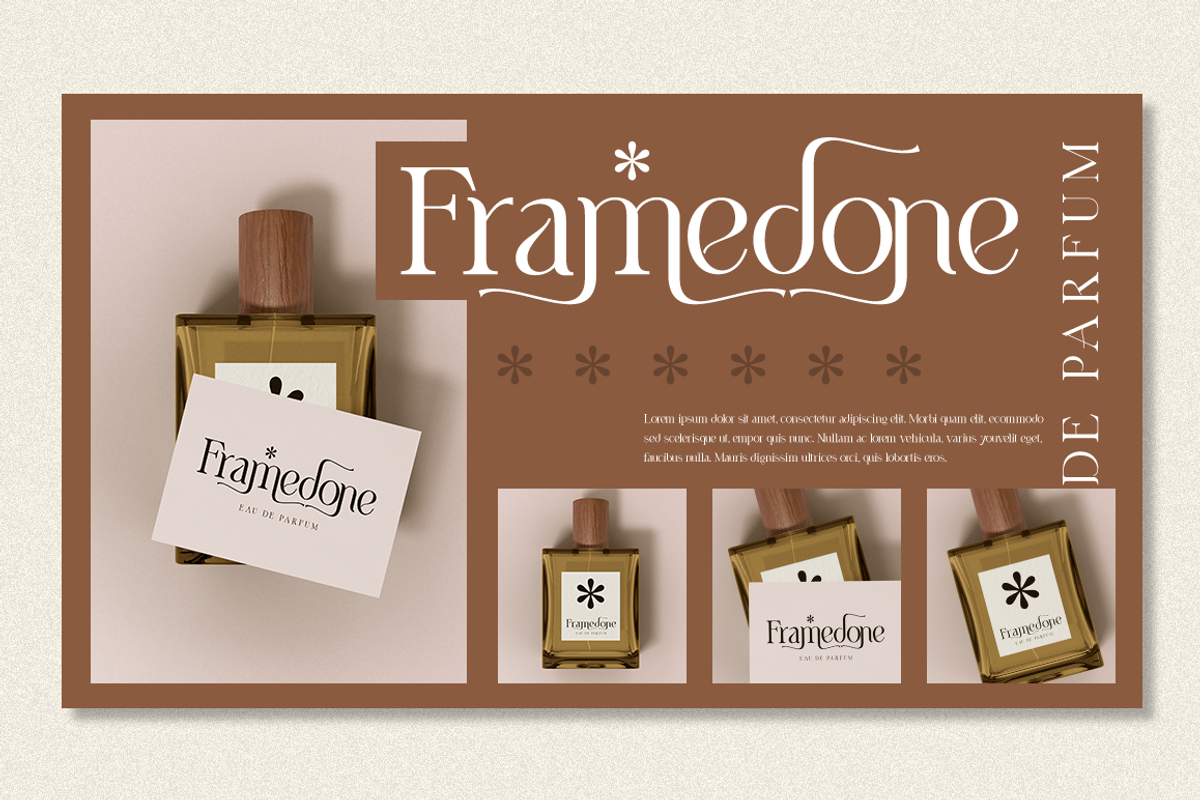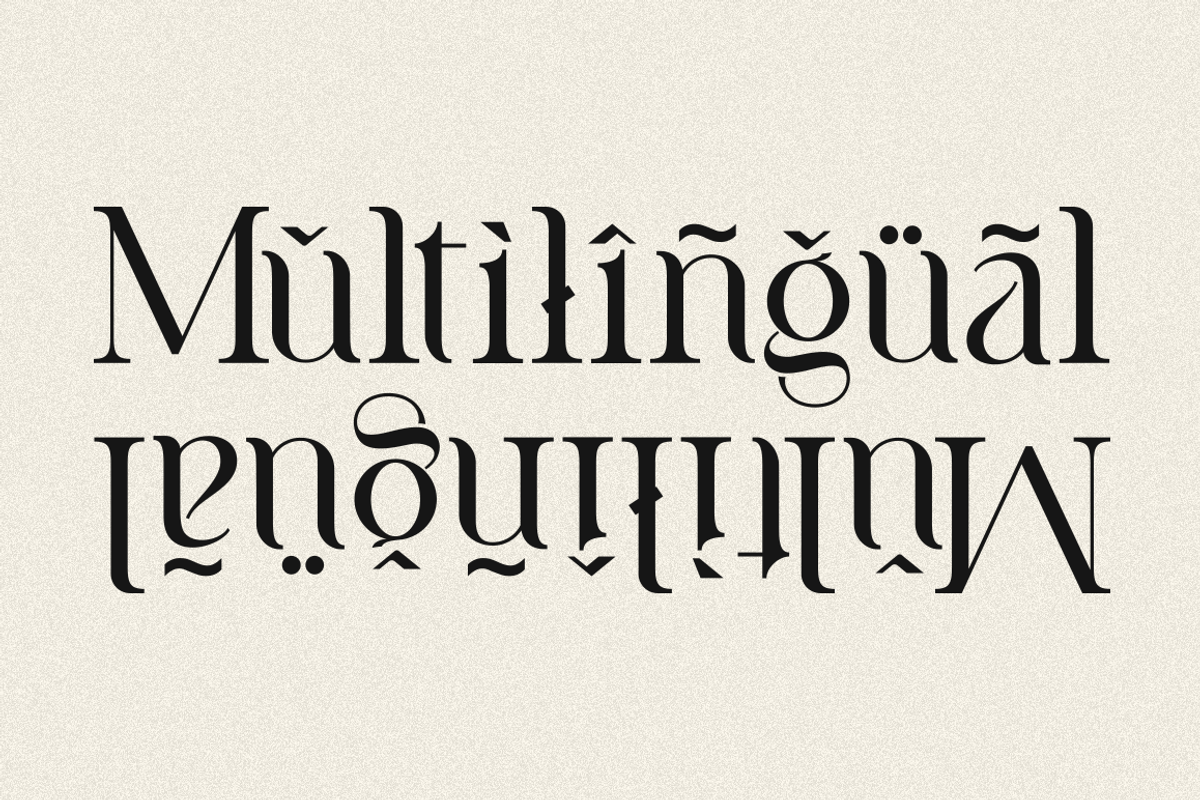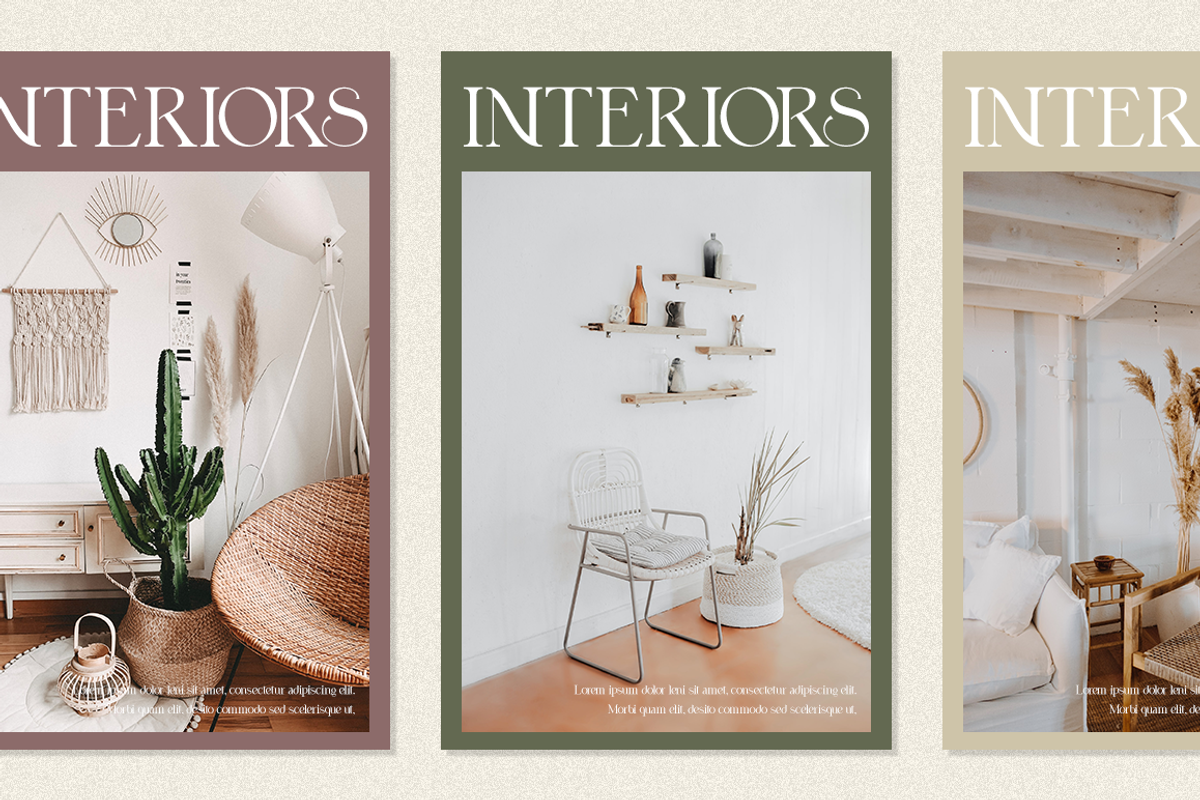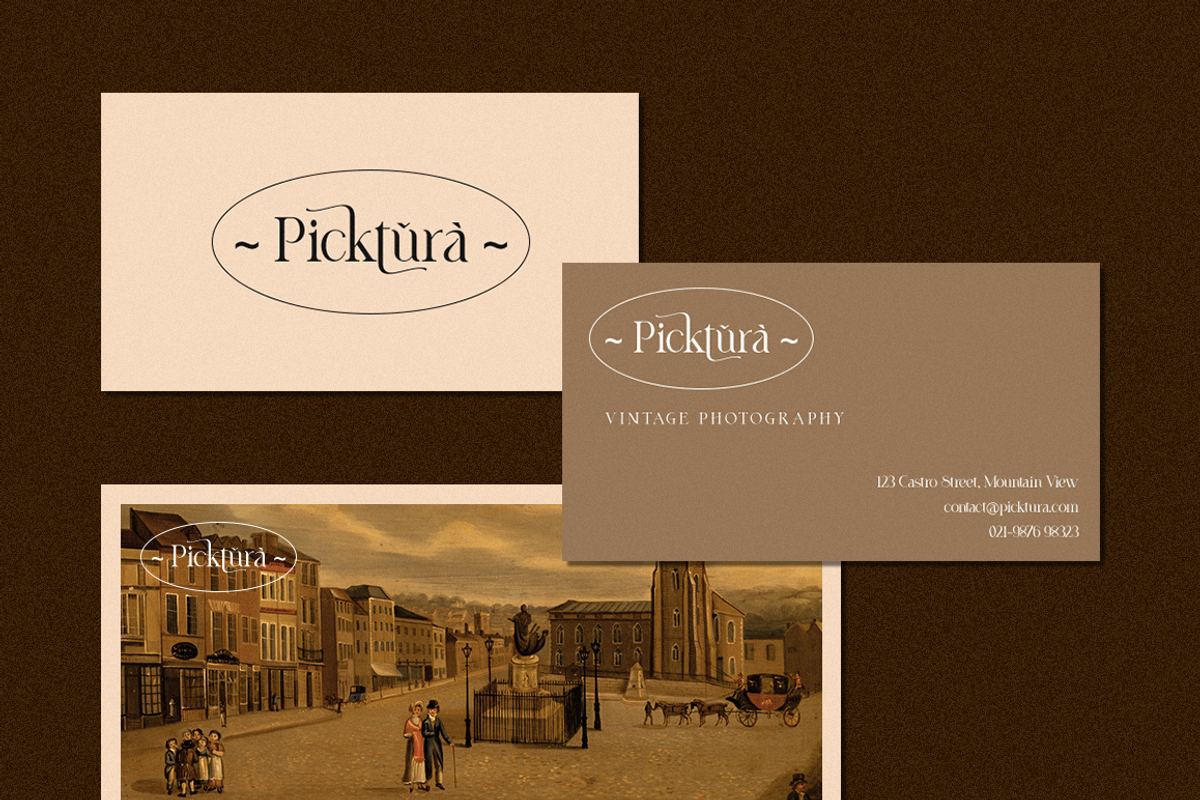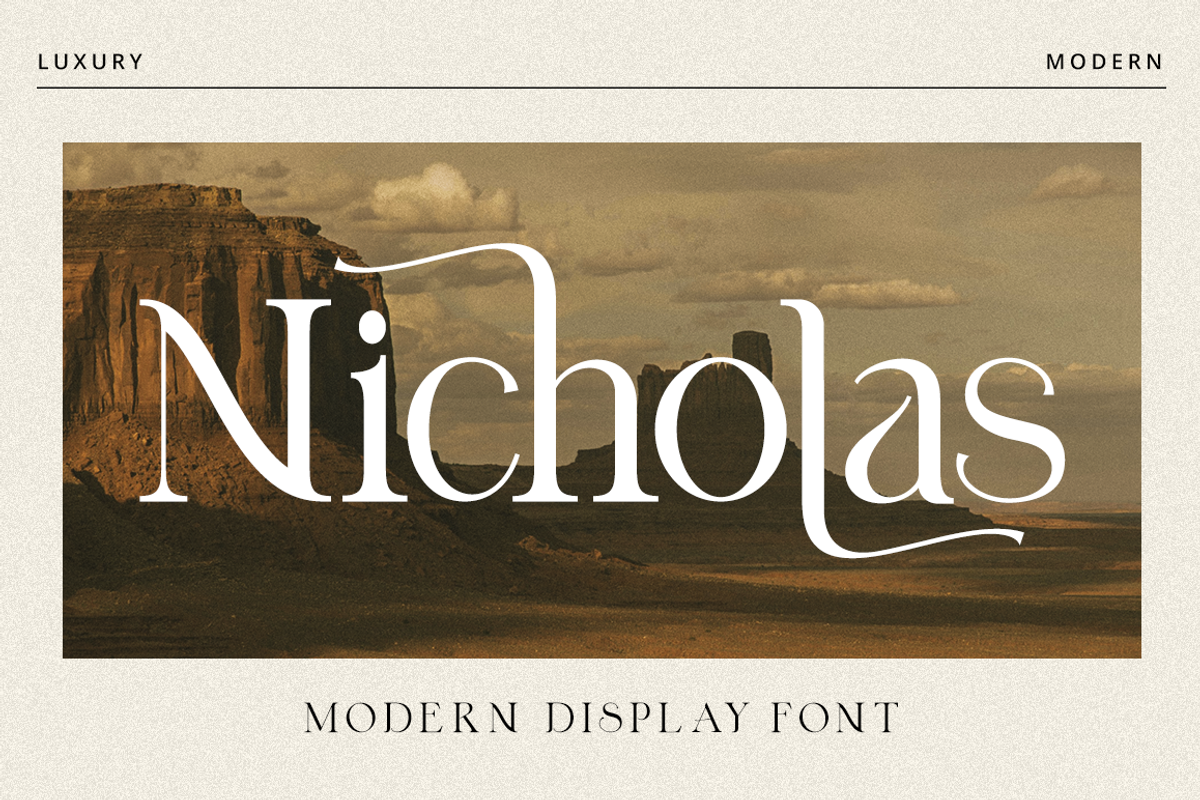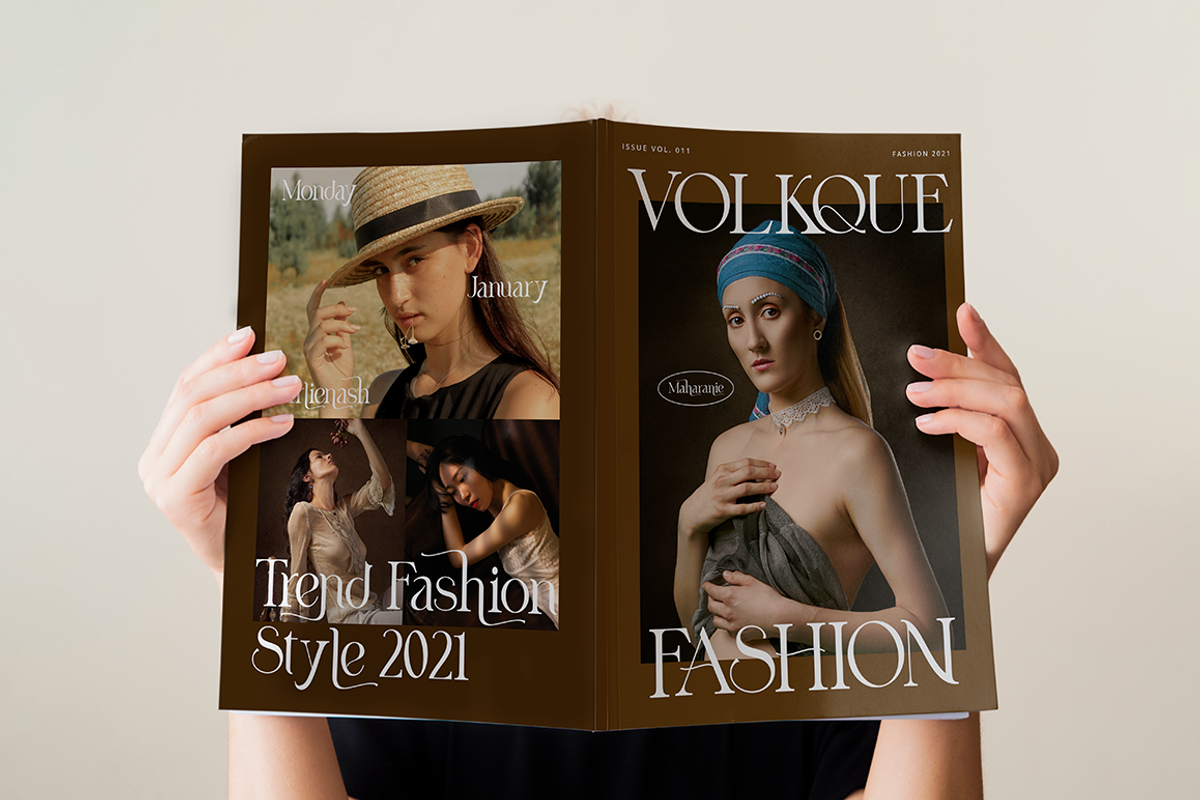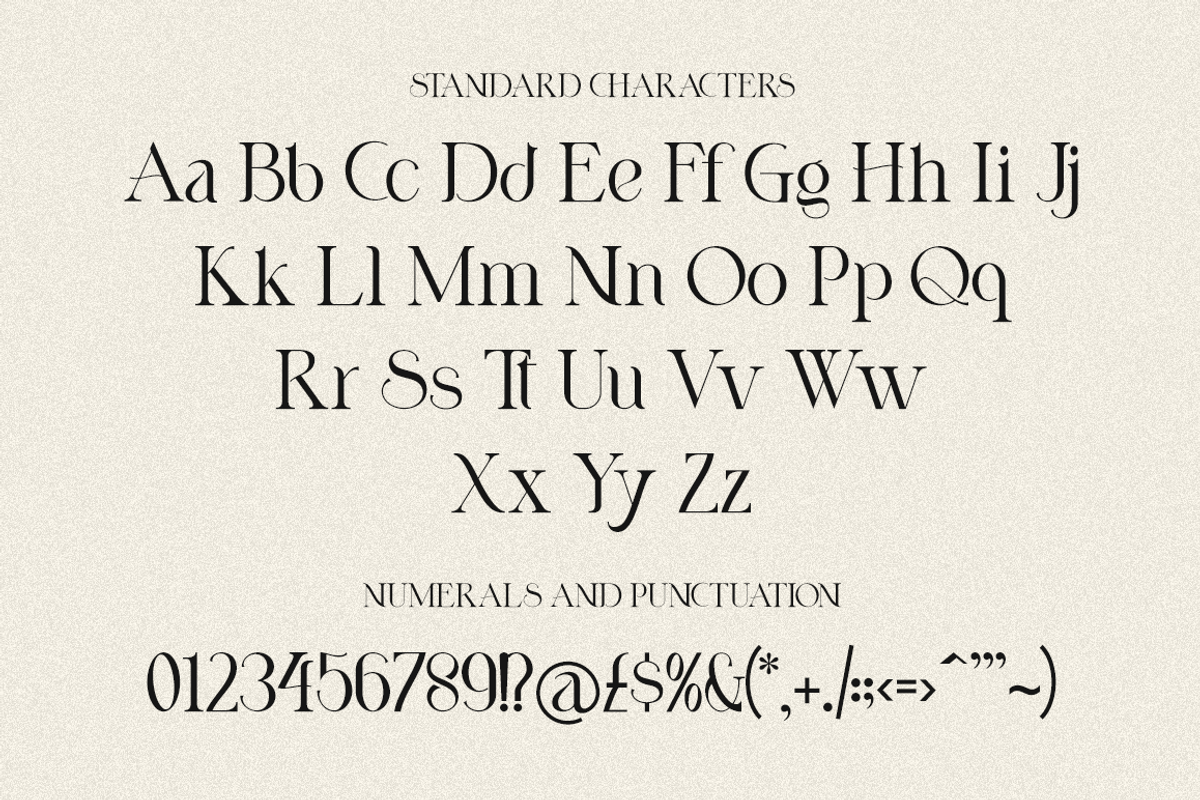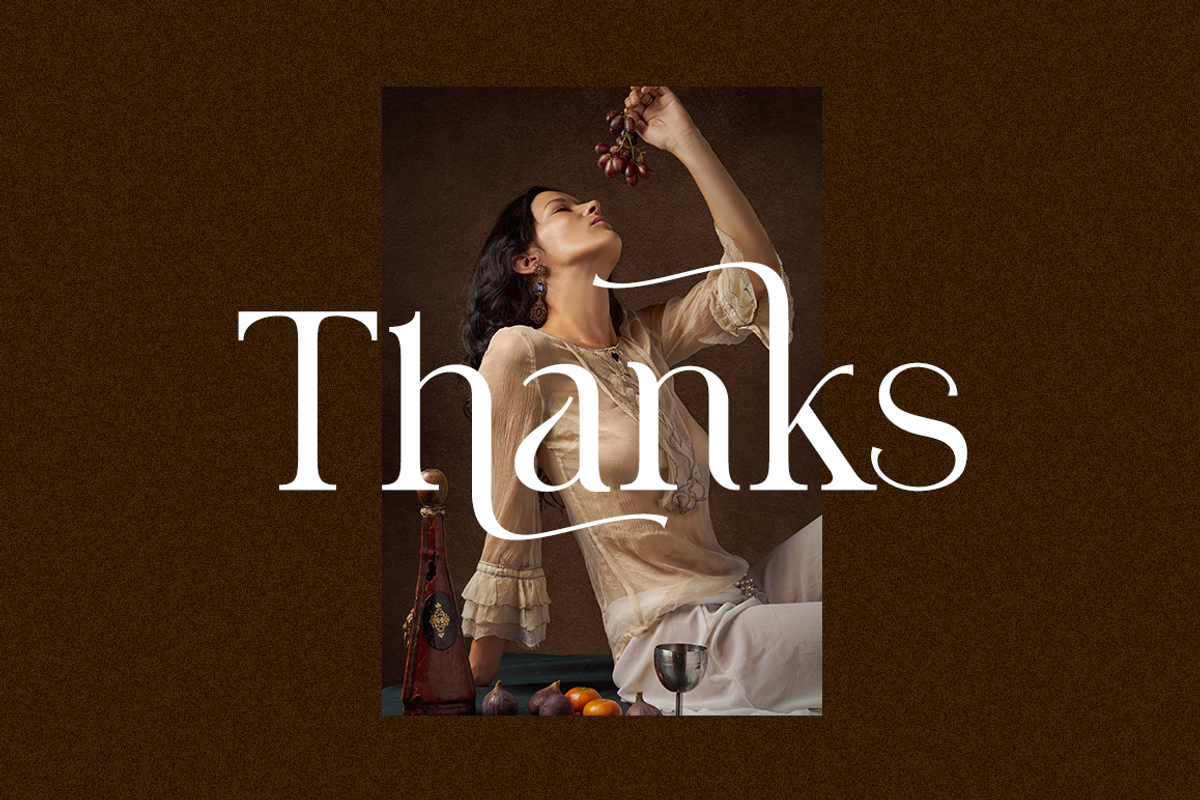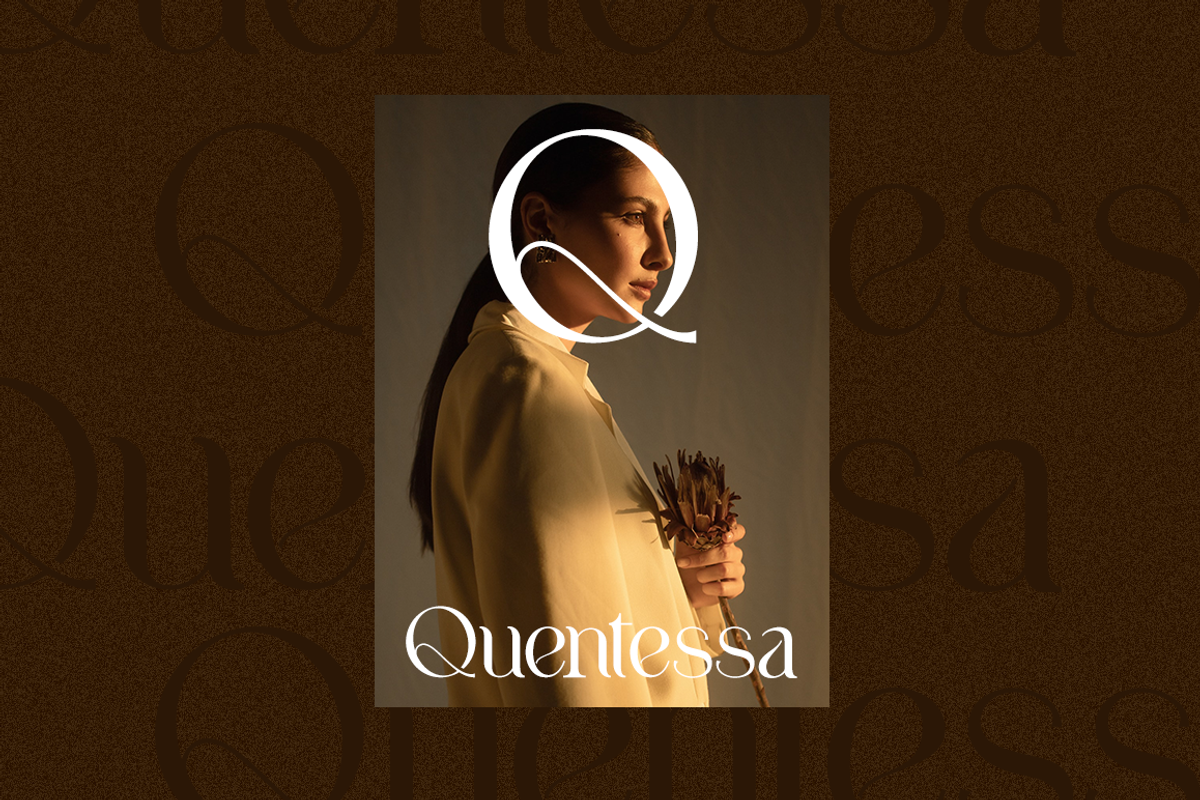
Nicholas // A Modern Display Font
Nicholas is a simple and casual serif font with an undeniably clean feel. With its neat and beautiful arrangement of letters, this typeface will look outstanding in both formal and non-formal designs.